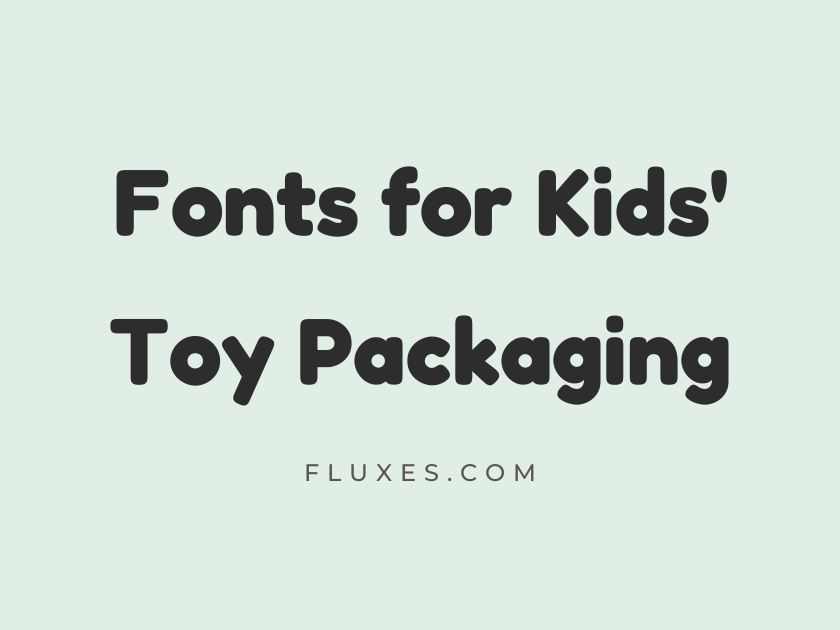
60 Best Fonts for Kids’ Toy Packaging
Toy packaging has one job above almost everything else: make a stranger in a big-box aisle feel the same delight the child will feel once the box is opened. That means the typography has to work harder and faster than almost any other category of design, carrying personality, age-appropriateness, and shelf presence all at once. The best free fonts for kids’ toy packaging tend to share a few traits: rounded terminals, bouncy baselines, thick confident strokes that read from across an aisle, and just enough handmade charm to feel warm rather than corporate.
Because Google Fonts hosts such a deep bench of playful, bubbly, and hand-lettered families, there is no need to reach for paid type libraries to get that toy-box energy. The list below moves between bold display faces built for logos and box fronts, softer rounded sans fonts for ingredient-style safety copy, and loose handwriting styles for a more artisanal, wooden-toy feel.
Fredoka is close to a default choice for children’s branding now, and for good reason: its balloon-like curves and generous x-height make it friendly without tipping into babyish. It comes as a variable font with a full weight range, so the same family can carry a chunky logotype and a softer subhead on the back of the box.
Baloo 2 rounds off every corner it can find, giving it a soft, pillowy quality that suits plush toys and preschool product lines especially well. The heavier weights hold up beautifully at large sizes on a box front, while the lighter cuts stay legible on smaller inserts and hangtags.
There is a cartoon-mascot quality to Chewy, with its bulging, slightly wobbly letterforms that look like they were drawn for a Saturday morning show. It works best as a short logotype rather than long copy, since the exaggerated shapes get busy in a full sentence.
Bangers pulls straight from comic-book lettering, all jagged energy and inflated caps that shout rather than speak. It is a natural fit for action figures, superhero-adjacent toy lines, and anything that wants to feel loud, fast, and a little bit rebellious on the shelf.
Few free fonts convey pure cartoon joy as efficiently as Luckiest Guy. Its thick, slightly irregular strokes look hand-painted rather than digitally drawn, which gives packaging an approachable, almost retro-toy-store warmth.
Keep it for headlines and hero words only. At body-copy sizes the heavy weight and tight spacing start to clot together and lose the very charm that makes it work big.
Bubblegum Sans
True to its name, Bubblegum Sans has a soft, chewy roundness that feels aimed squarely at younger kids. It reads as friendly and unthreatening rather than loud, making it a good choice for toddler and infant toy lines where the tone needs to stay gentle.
Sniglet’s rounded, slightly puffy letters look almost inflated, like foam building blocks. The bold weight has real shelf presence, and because the family also includes a regular weight, it can carry both the box front and the smaller safety text.
Comic Neue
Comic Neue exists as a cleaner, more professional answer to the much-maligned Comic Sans, keeping the casual, approachable feel while tightening the construction. It is a smart pick when a brand wants a comic, kid-friendly voice without looking amateurish next to competitors on the same shelf.
Patrick Hand mimics a neat classroom handwriting style, upright and legible rather than scrawled. It suits craft-adjacent toys, wooden puzzles, and educational sets that want to feel personal and teacher-approved rather than mass-produced.
Schoolbell has a looser, more childlike scrawl than Patrick Hand, closer to a note pinned to a school corkboard. It pairs nicely with a clean sans for body copy, standing in as an accent voice for callouts and character names.
Thin, wavering strokes give Gochi Hand a delicate, sketchbook feel, more suited to a small handwritten note on packaging than a bold logotype. It works well for indie or artisan toy brands leaning into a homemade, small-batch story.
Amatic SC is tall, narrow, and slightly wobbly, with a hand-cut quality reminiscent of chalkboard lettering. Its condensed width makes it useful for fitting playful headlines into narrow panels on a box side without shrinking the type into illegibility.
At small sizes, thick display faces like Alfa Slab One or Kablammo can lose clarity, so reserve them for hero moments and switch to a simpler face for fine print.
Whatever the toy category, the type should feel like it belongs on the same shelf as the product inside it: playful where the toy is playful, sturdy where the toy is built to last, and always easy to read from an arm’s length away.